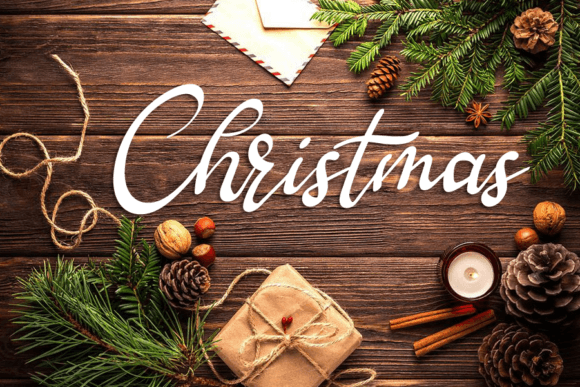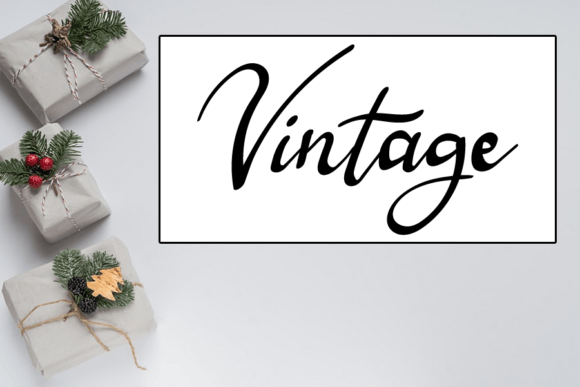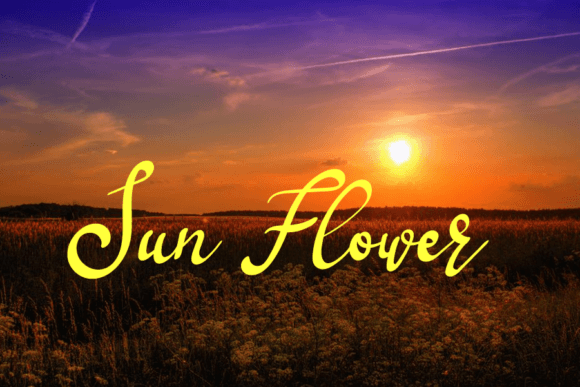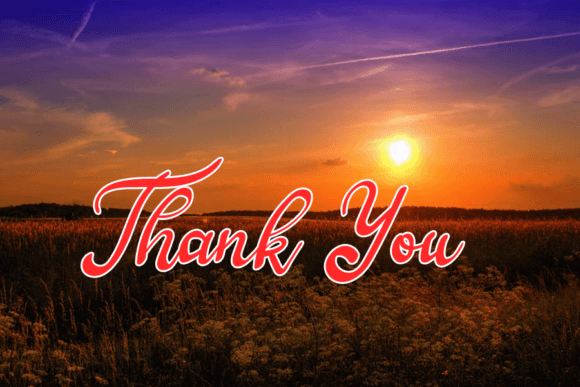
Introducing Hasley Font: Elevate Your Design with Elegant Handwritten Style
Are you looking for a font that can add a touch of sophistication and elegance to your design projects? Look no further than Hasley Font, a stunning handwritten font that is sure to make your work stand out. With its curvy lines and beautiful lettering, Hasley is perfect for a wide range of applications, from product packaging and branding projects to magazine covers, social media graphics, and wedding designs.
The Characteristics of Hasley Font
Hasley Font is a gorgeous handwritten font that boasts elegant and curvy lines, giving it a unique and sophisticated look. The font is designed to be highly legible, making it perfect for use in a variety of contexts, from large headlines to body text. The letters are carefully crafted to create a sense of fluidity and movement, giving the font a dynamic and expressive feel.
Uses for Hasley Font
Hasley Font is an incredibly versatile font that can be used in a wide range of design projects. Here are just a few ideas to get you started:
- Product Packaging: Add a touch of elegance to your product packaging with Hasley Font. The font is perfect for labeling products, creating brand identity, and designing packaging materials.
- Branding Projects: Establish your brand identity with Hasley Font. The font can be used to create logos, business cards, and other marketing materials that reflect your brand’s personality and style.
- Magazine Covers: Create eye-catching magazine covers with Hasley Font. The font is perfect for headlines, titles, and other design elements that need to make a big impact.
- Social Media: Use Hasley Font to create engaging social media graphics, such as Facebook posts, Instagram stories, and Twitter headers.
- Weddings: Make your wedding designs truly special with Hasley Font. The font is perfect for creating wedding invitations, programs, and other stationery.
Why Choose Hasley Font?
There are many reasons why Hasley Font is a great choice for designers and crafters. Here are just a few:
- Elegant and Sophisticated: Hasley Font has an elegant and sophisticated look that is sure to impress. The font is perfect for designers who want to create high-end designs that reflect their brand’s personality and style.
- Highly Legible: Hasley Font is designed to be highly legible, making it perfect for use in a variety of contexts, from large headlines to body text.
- Versatile: Hasley Font is an incredibly versatile font that can be used in a wide range of design projects.
Tips for Using Hasley Font
Here are a few tips for using Hasley Font in your design projects:
- Use it as a Headline Font: Hasley Font is perfect for use as a headline font. Use it to create eye-catching titles and headings that grab attention.
- Pair it with Other Fonts: Hasley Font can be paired with other fonts to create a unique and interesting look. Try pairing it with a sans-serif font for a modern look or a serif font for a more traditional look.
- Experiment with Colors: Hasley Font looks great in a variety of colors. Experiment with different colors to find the one that works best for your design.
Hasley Font is a gorgeous handwritten font that is sure to elevate your design projects. With its elegant and curvy lines, Hasley is perfect for a wide range of applications, from product packaging and branding projects to magazine covers, social media graphics, and wedding designs. Whether you’re a designer or crafter, Hasley Font is a great choice for anyone looking to add a touch of sophistication and elegance to their work.